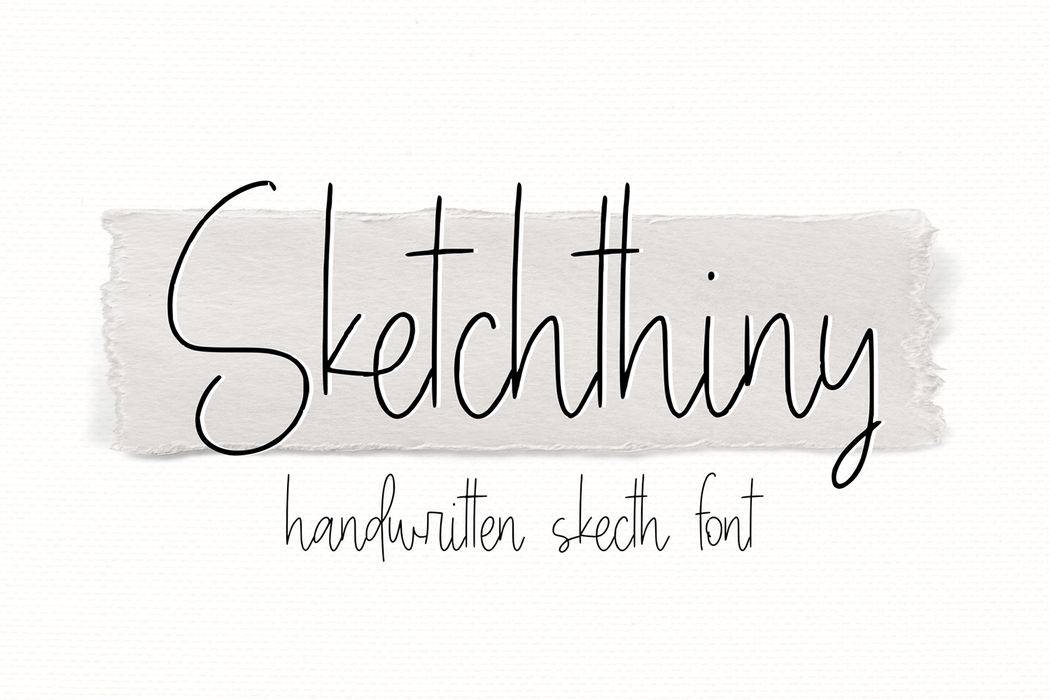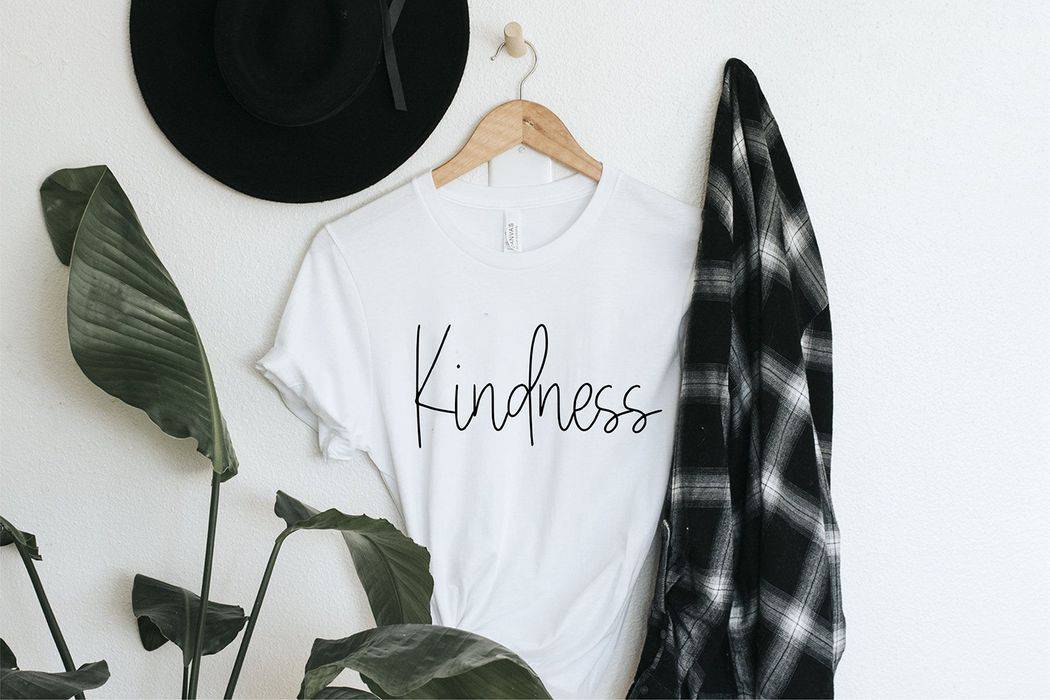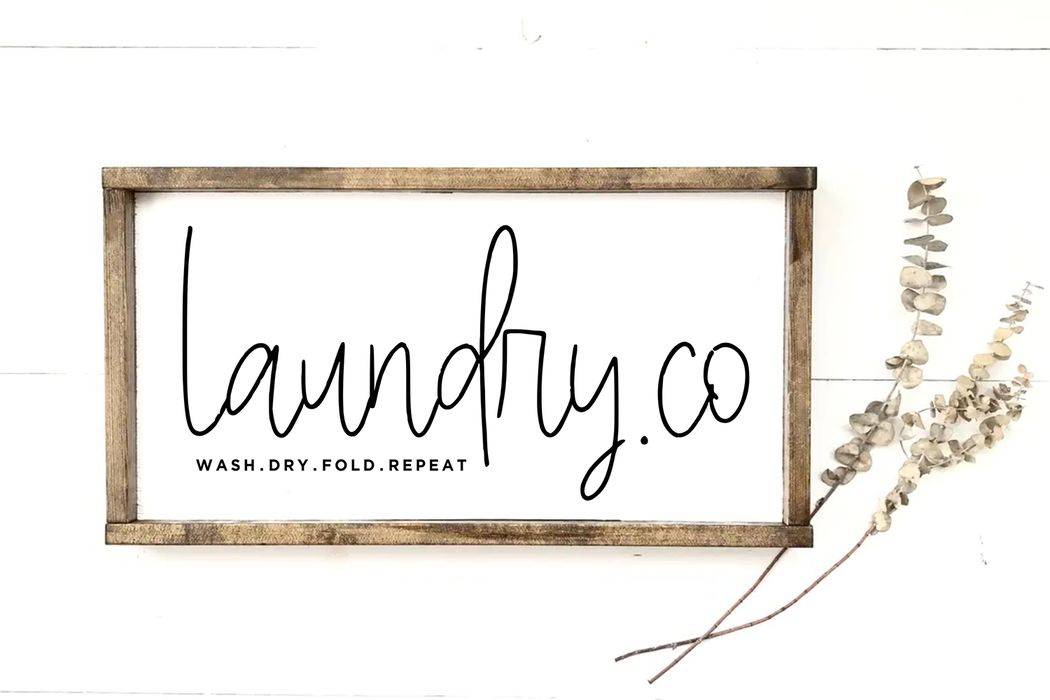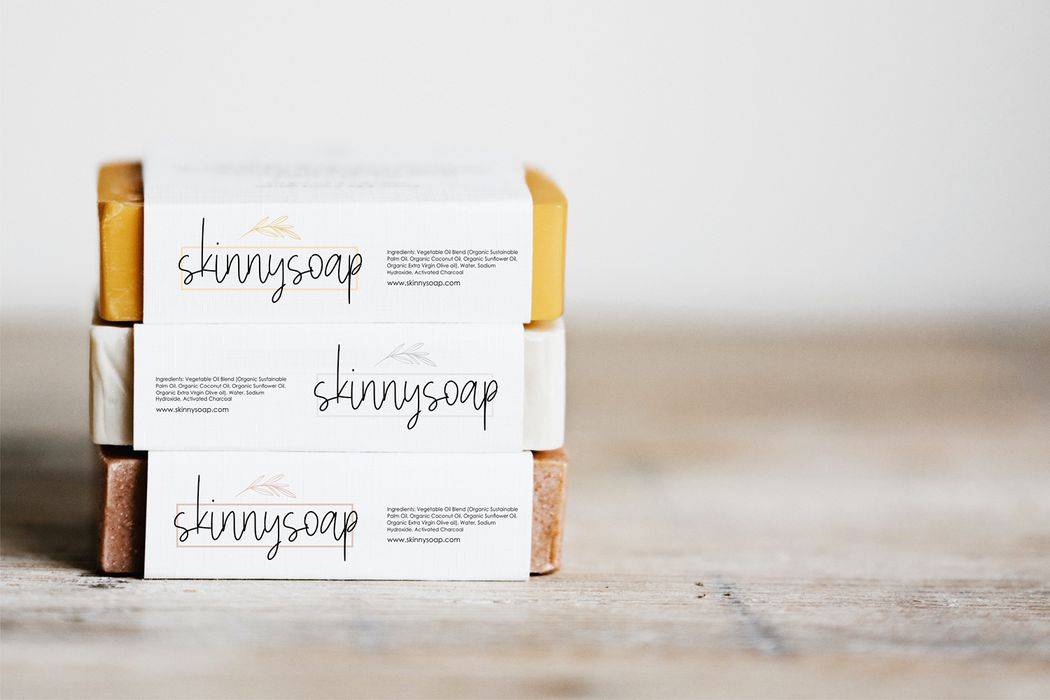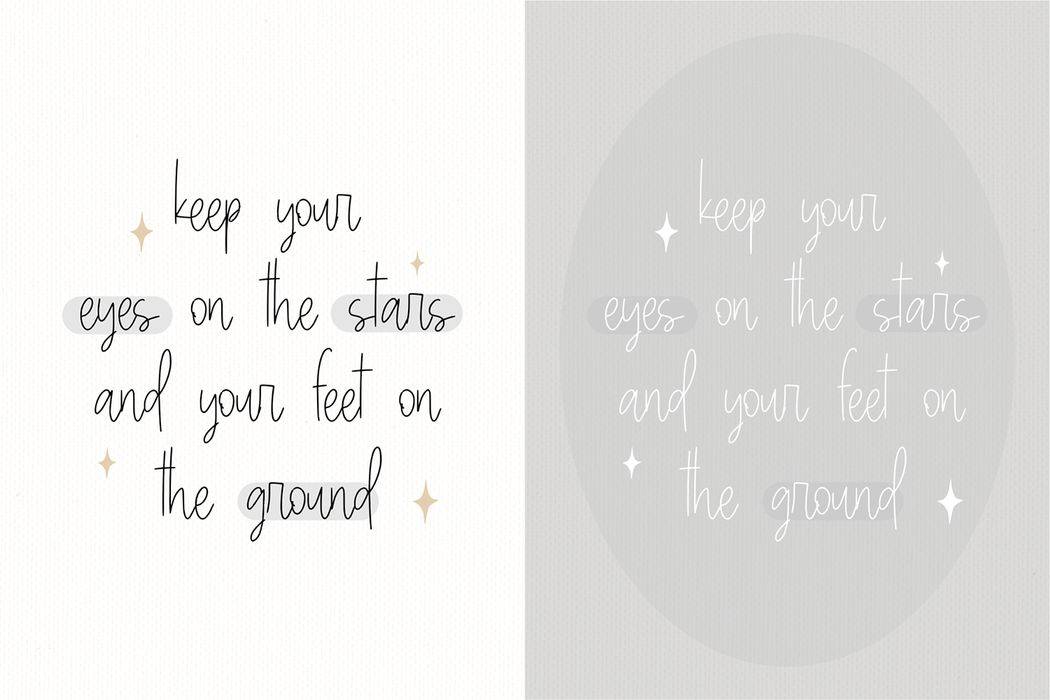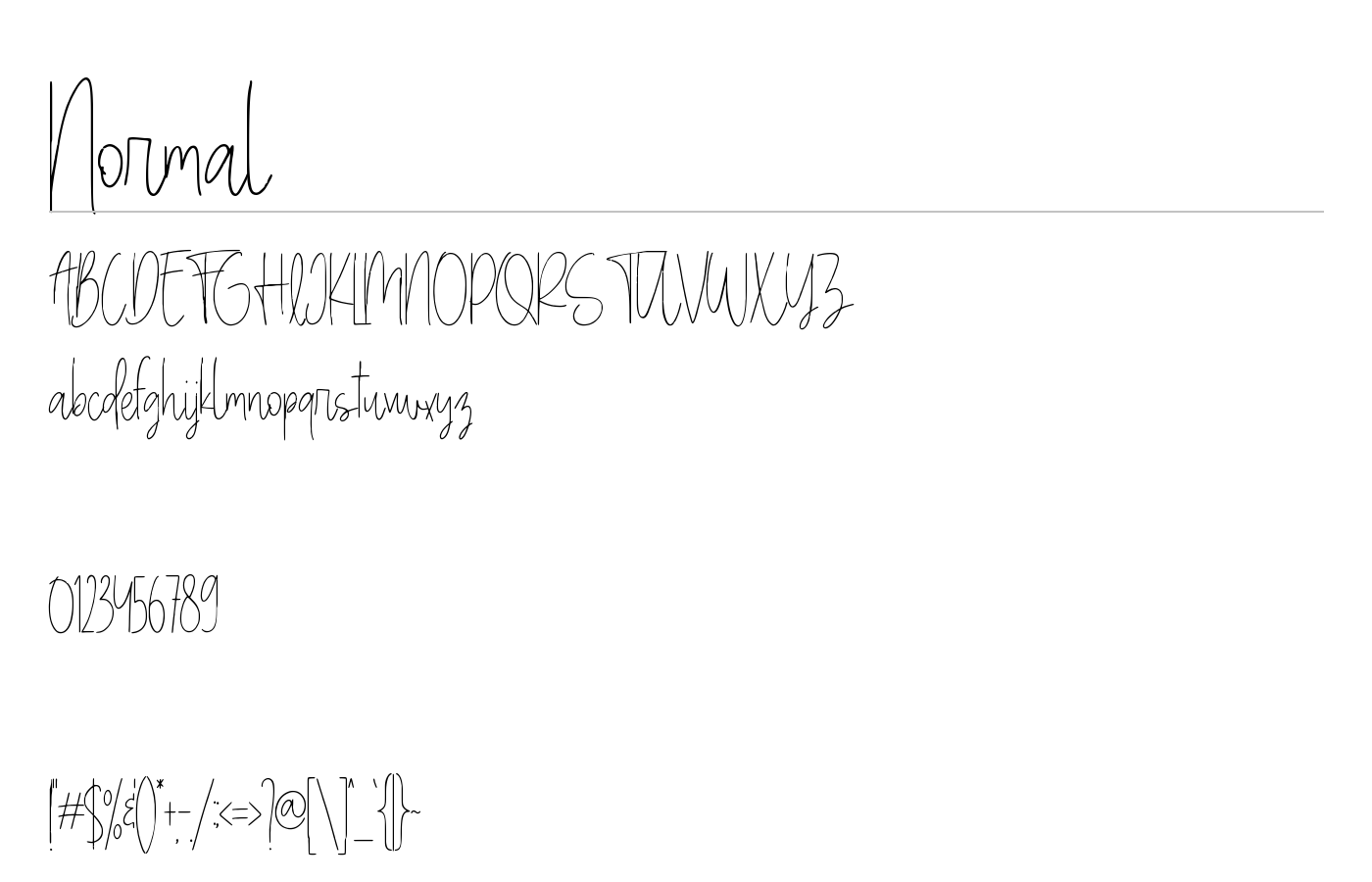
Sketchthiny is a delicate, hand-drawn script font characterized by its tall, narrow letterforms and thin, sketch-like strokes. Its playful yet elegant style works wonderfully for creative projects, feminine branding, and informal designs that seek a personal, artistic touch. This font is best suited for headlines, logos, and invitations where a light, whimsical feel is desired.
Sketchthiny Font